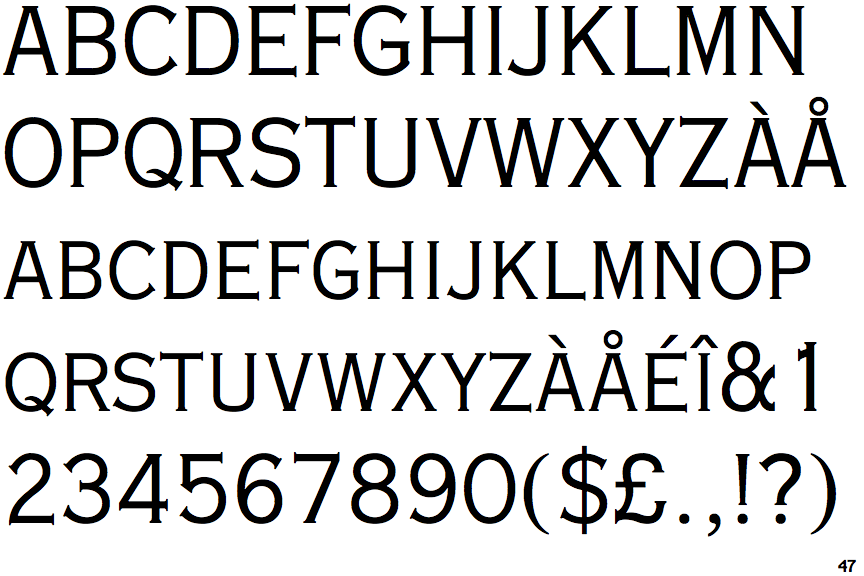
Copperplate Gothic Font Adobe
Copperplate Gothic Font Adobe. Copperplate font belongs to the serif font family. Adobe hide show add to favorite download.
Be aware that the copperplate gothic std 33 bc font is free for personal knowledge and use only. Goudy and launched with the aid of american type founders (atf) in 1901. Copperplate font belongs to the serif font family.
Originally Designed By Frederic W.
However, you need to contact the author for commercial use or for any support. Copperplate gothic is a typeface designed through frederic w. Be aware that the copperplate gothic font is free for personal knowledge and use only.